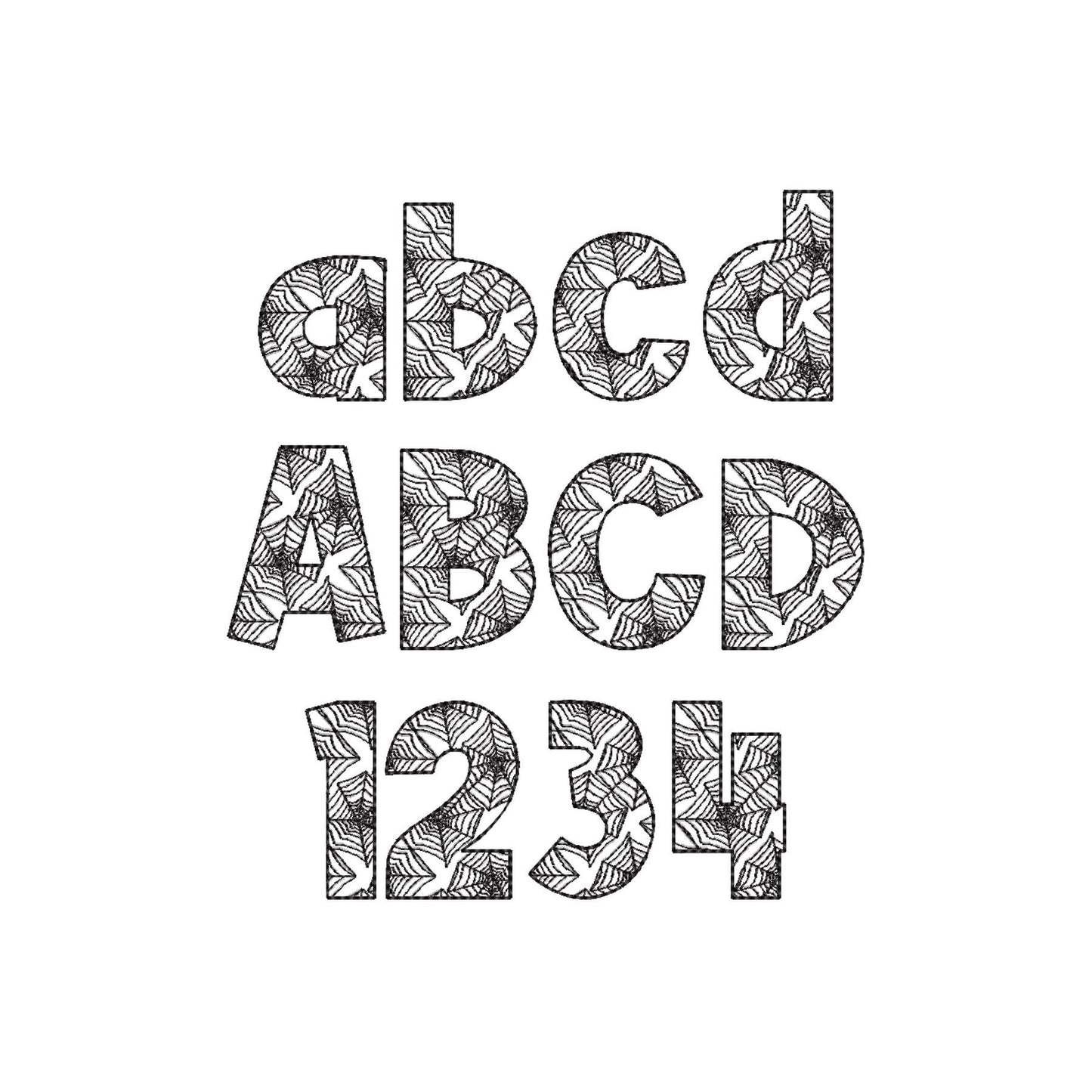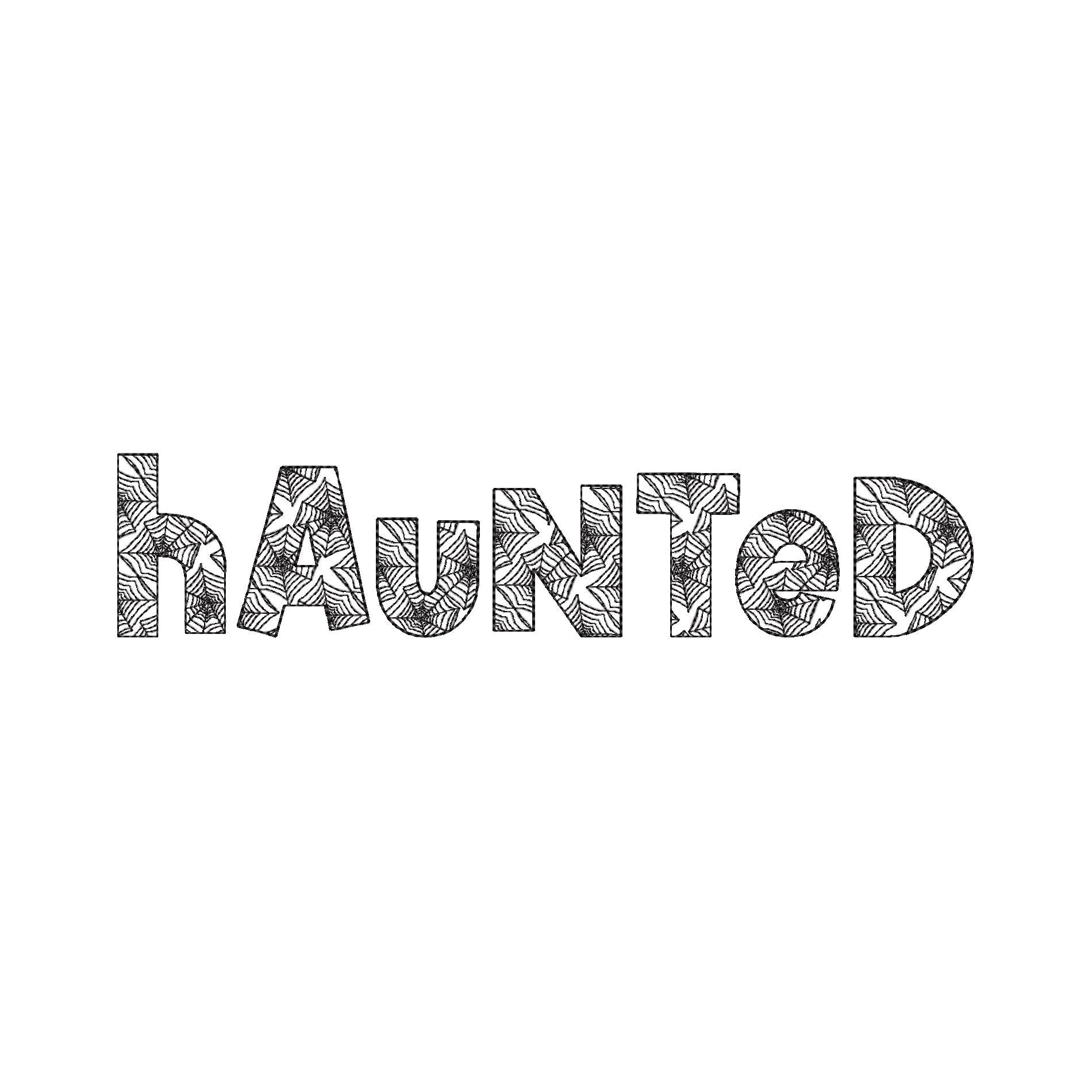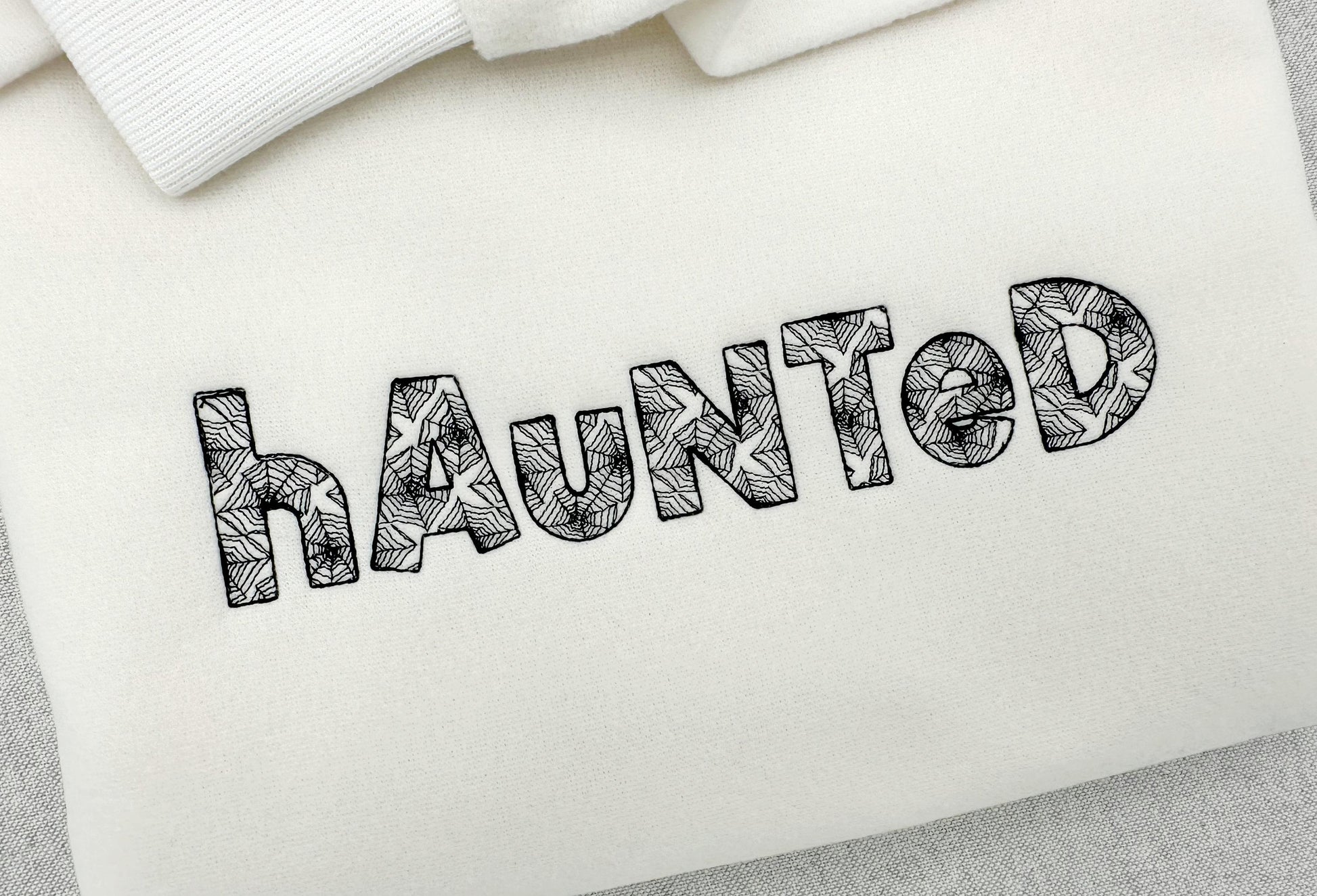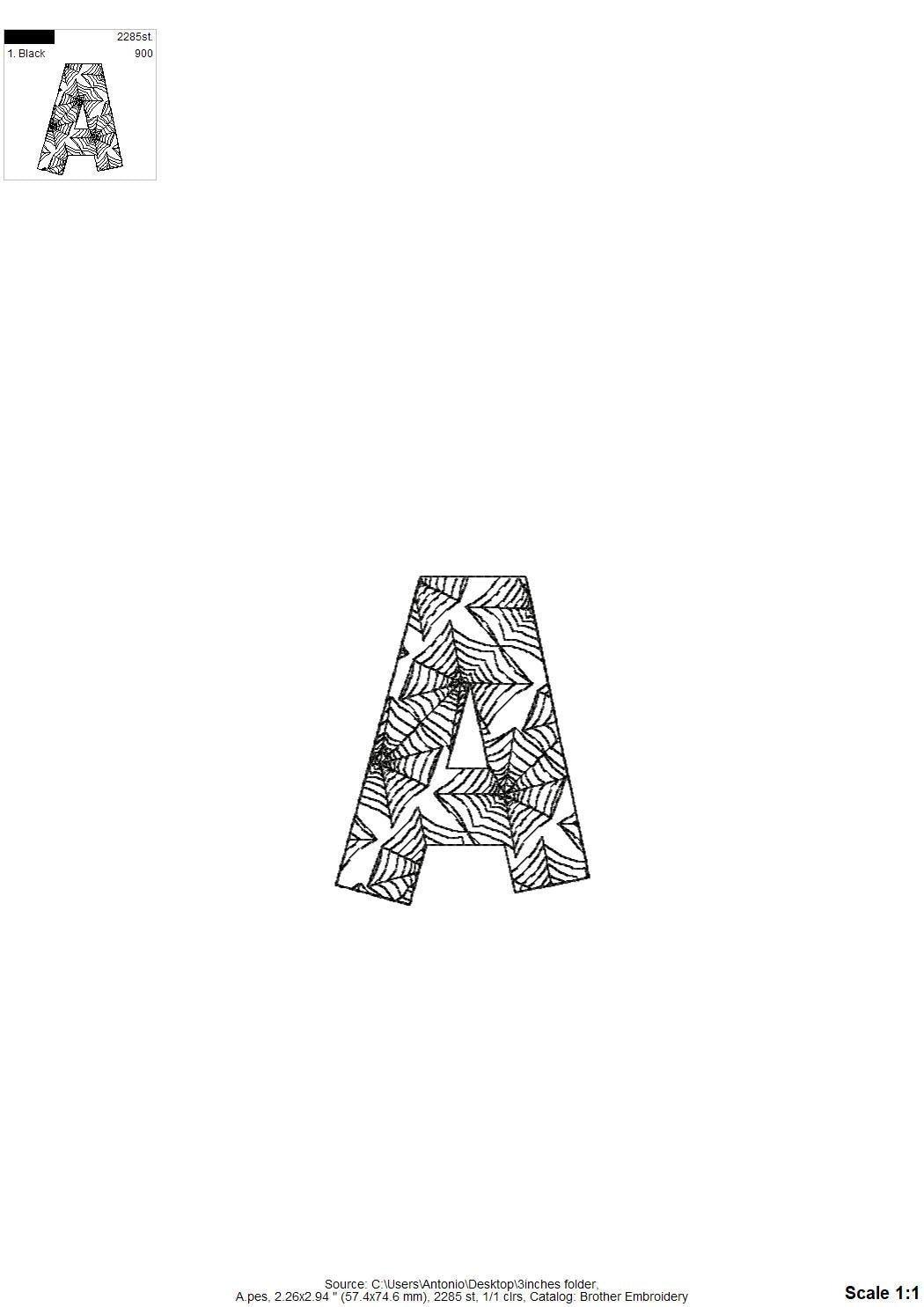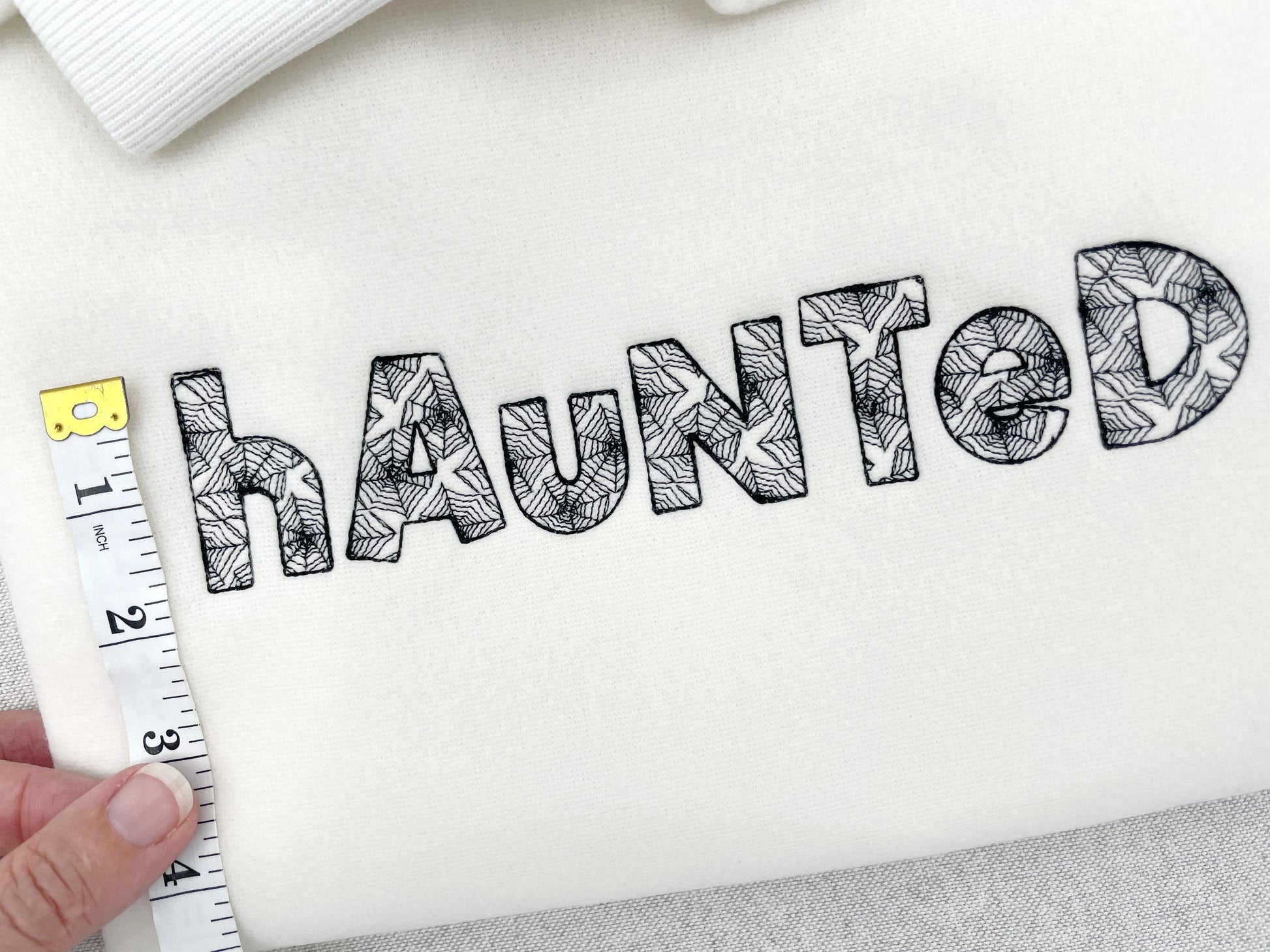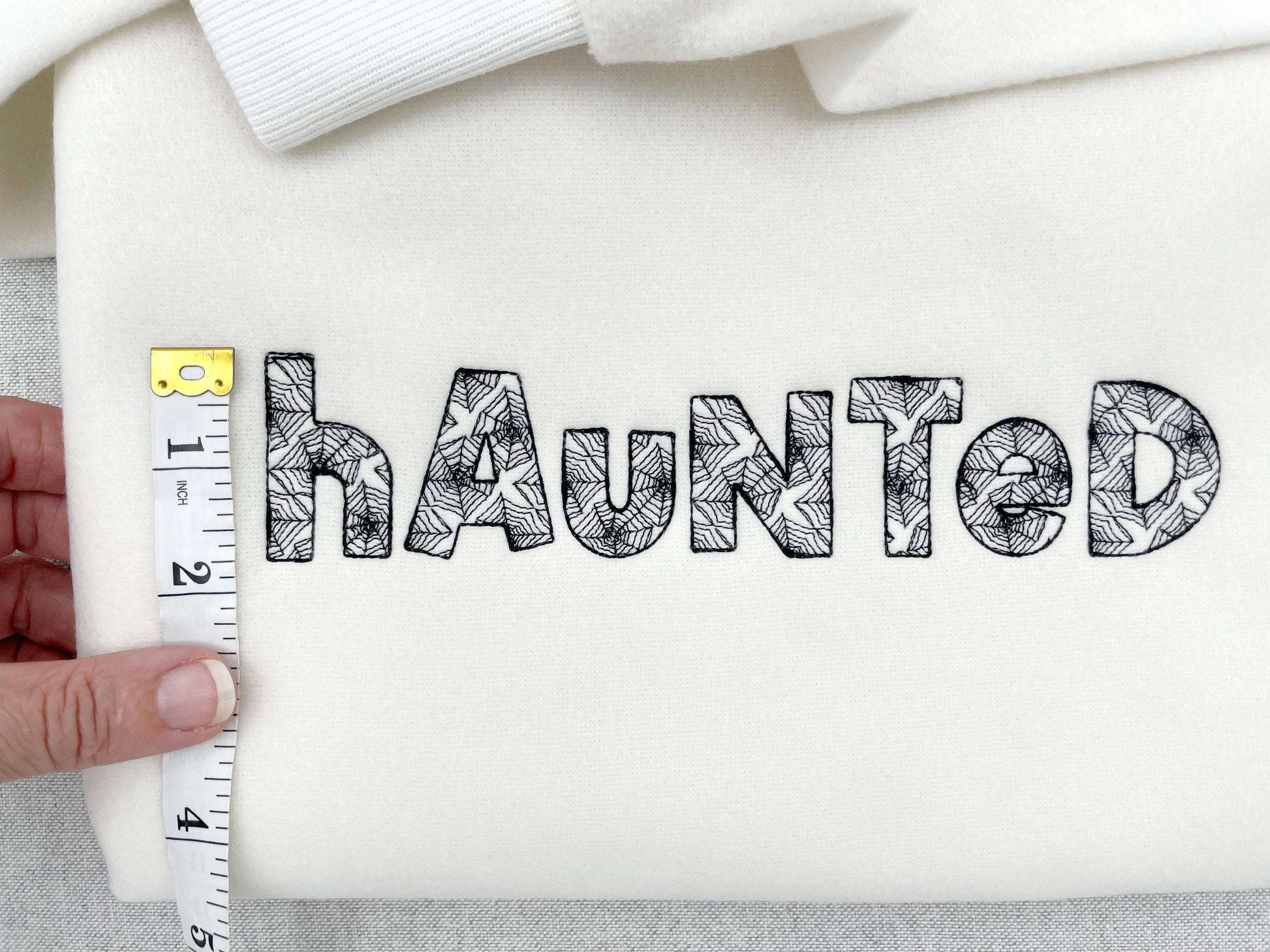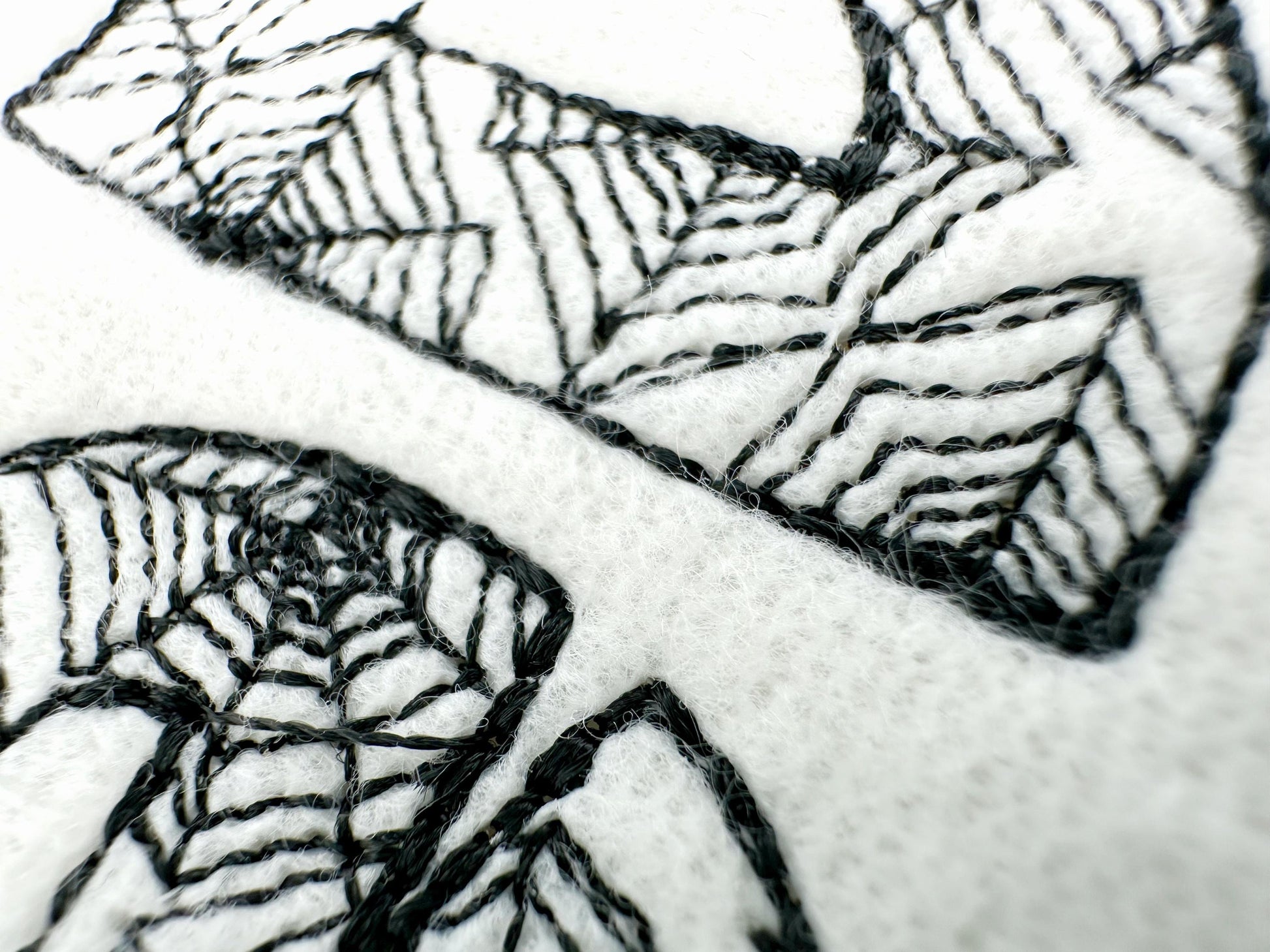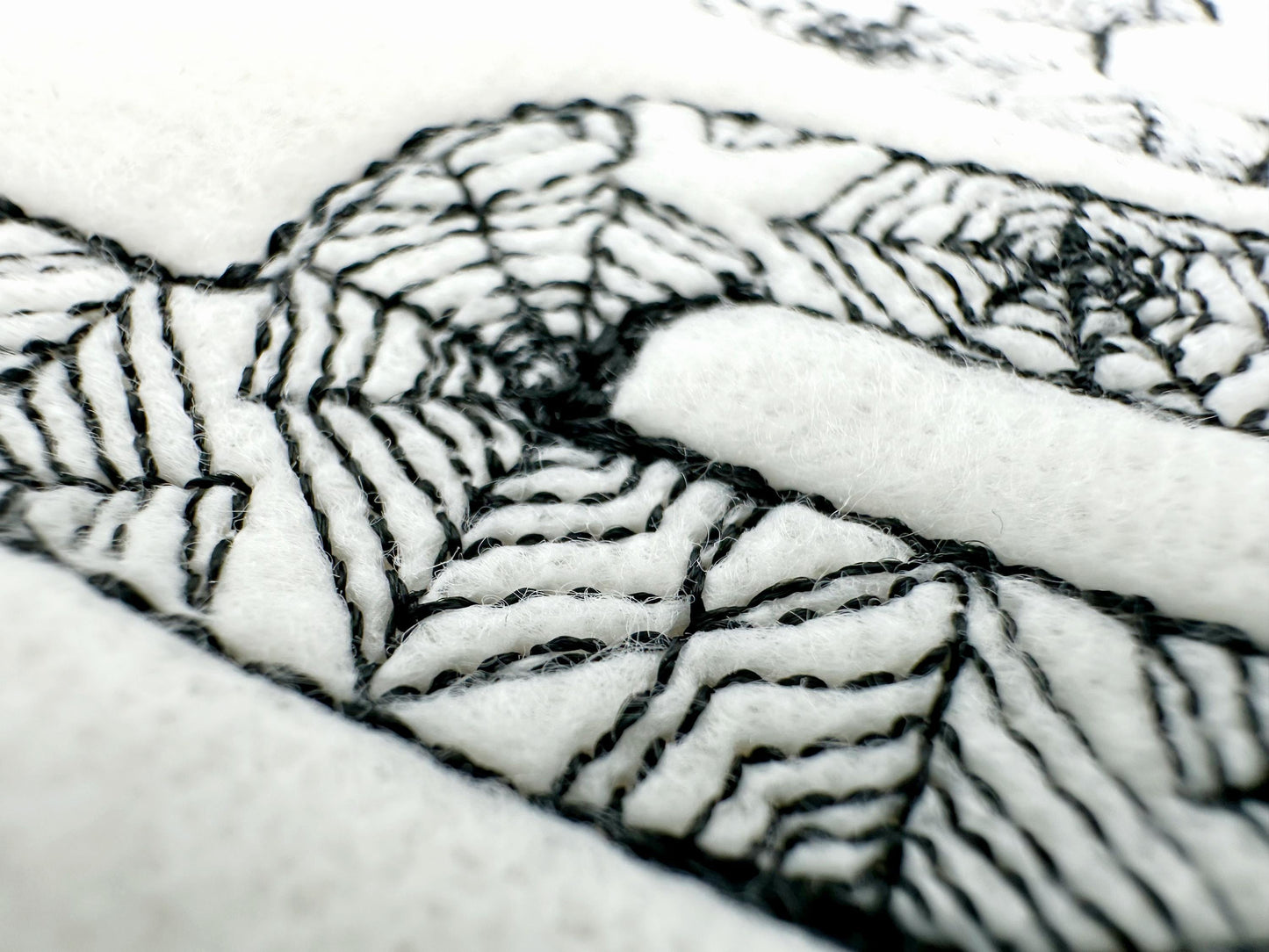
Halloween Spider Font
The letters come in eight sizes: 0.8, 1.2, 1.5, 2, 2.4, 3, 3.8 and 5 inches. A light stitch with a spider web pattern inside; the fabric shows through. Includes uppercase and lowercase letters, numbers 0 to 9 and punctuation.
- Spider web Halloween light stitch font
- 8 sizes, 0.8 to 5 in